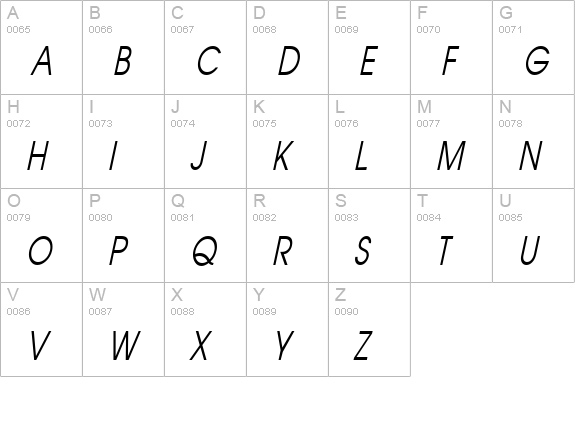
Atilla Thin Italic is a delicate, low-contrast, italic variant in the Atilla typeface family \xE2\x80\x94 well suited to fashion editorial, minimal branding, and high-contrast display.
Atilla Thin Italic font is a sleek and stylish typeface that exudes elegance and sophistication. With its slender and slanted design, this font adds a touch of modernity to any project. Perfect for creating eye-catching headlines, logos, or branding materials, Atilla Thin Italic font effortlessly combines a delicate appearance with a contemporary edge. The best part? Atilla Thin Italic font is available for free download at FontsMarket.com. This means you can easily access this stunning font to elevate your designs without any cost. Whether you're a professional designer looking for a unique typeface or a hobbyist wanting to add a special touch to your creations, Atilla Thin Italic font is a fantastic choice that won't break the bank. Download it today and watch your designs come to life with this exceptional font.